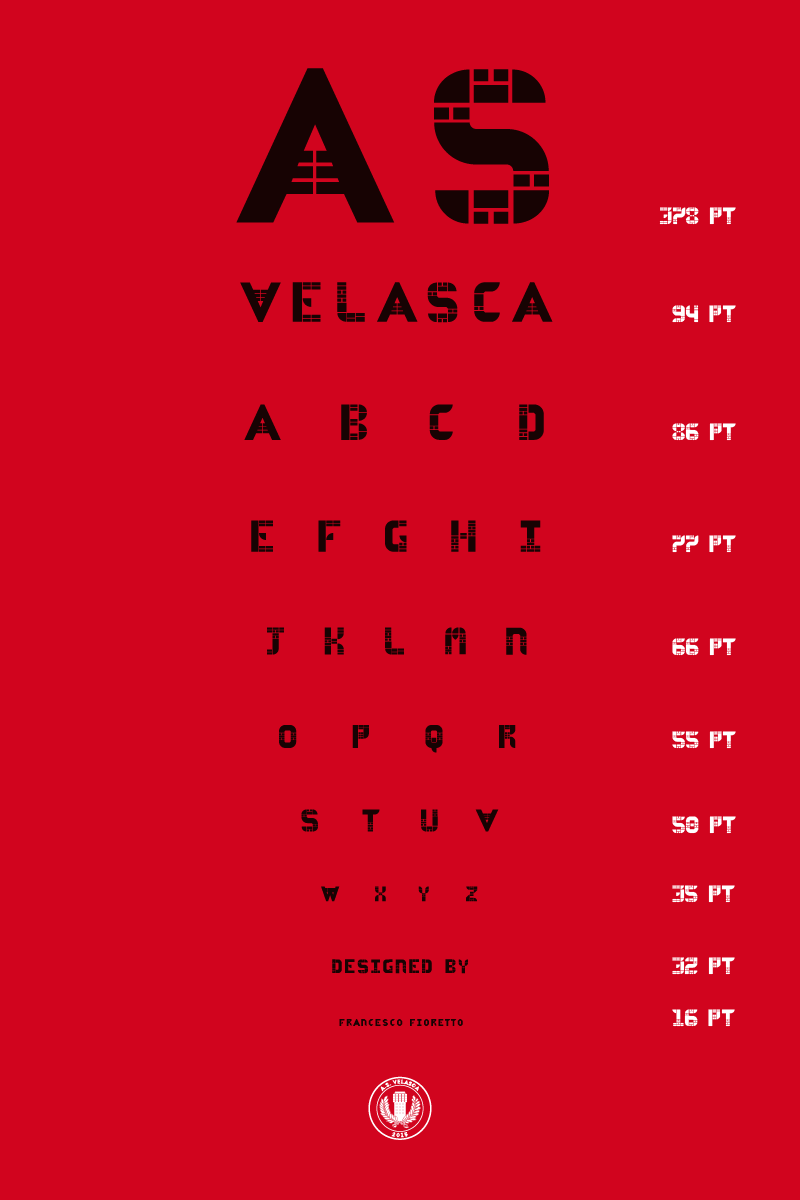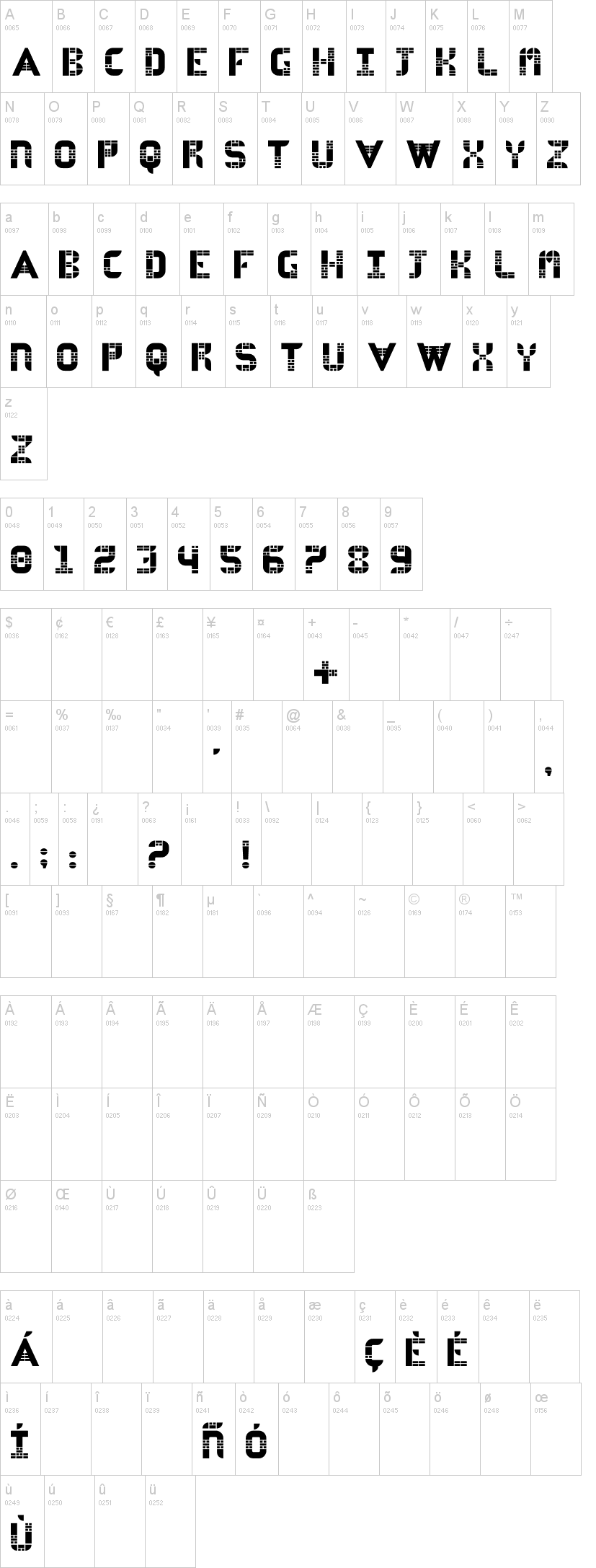
Note of the authorThe Velasca's typeface has been designed for the most artistic football club in the world, the A.S. Velasca. The typeface respects the proportions, the curves and the morphology of the Velasca Tower in Milan. The structuralistic appearance is studied not to bother the clarity of the letters both from closed and far reading.